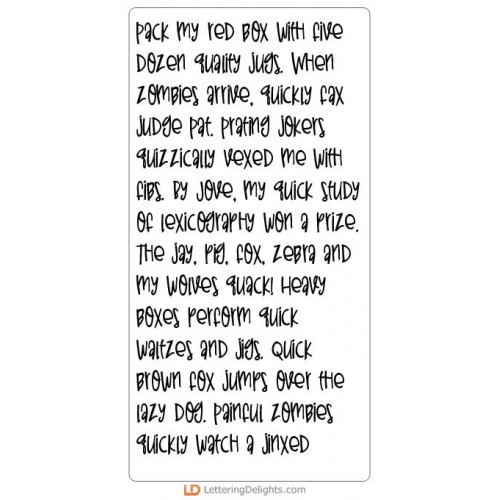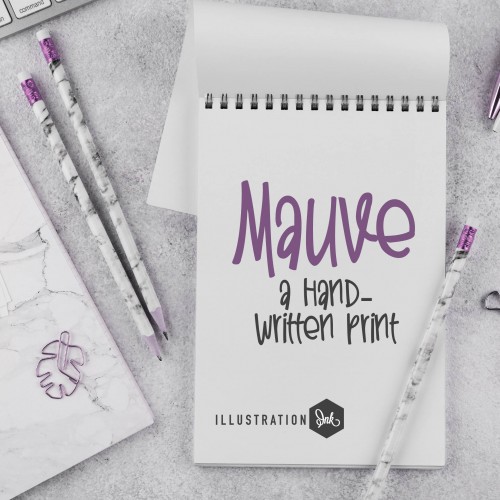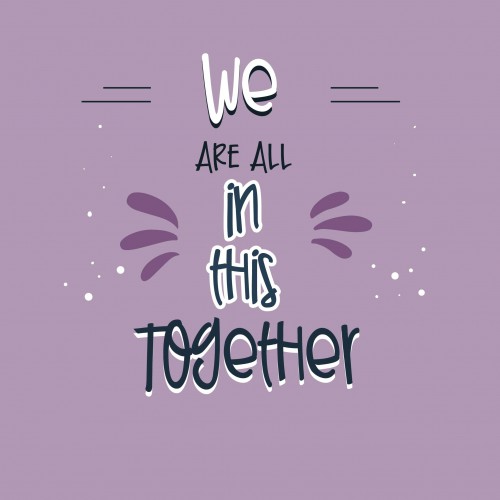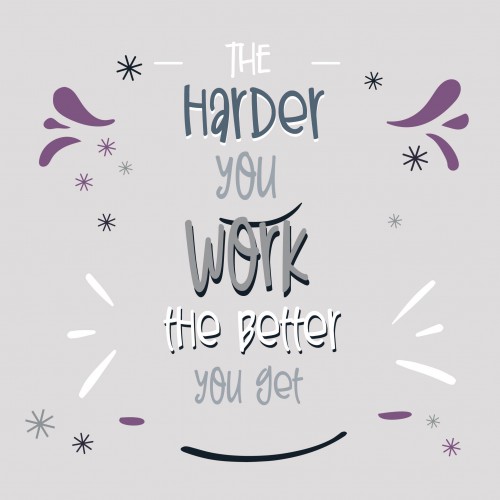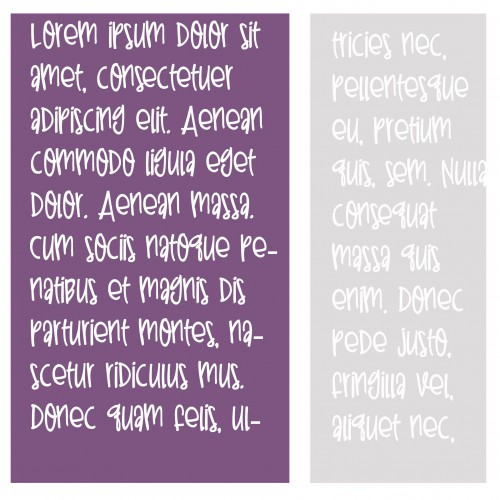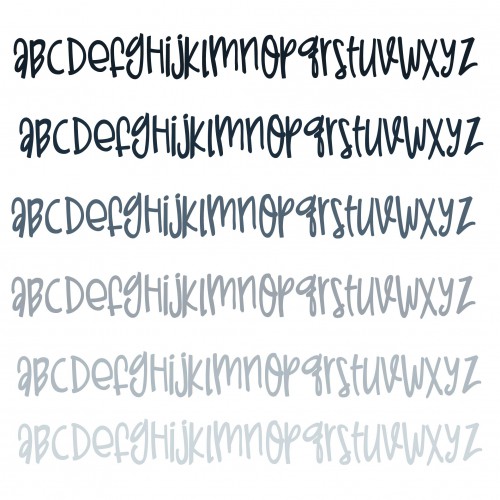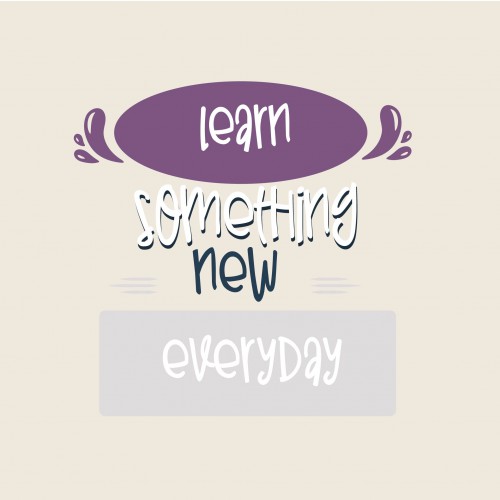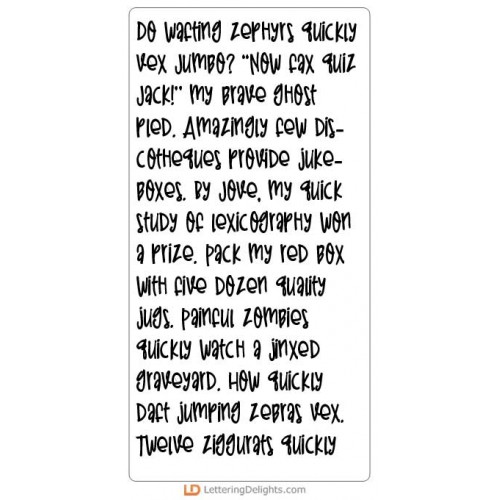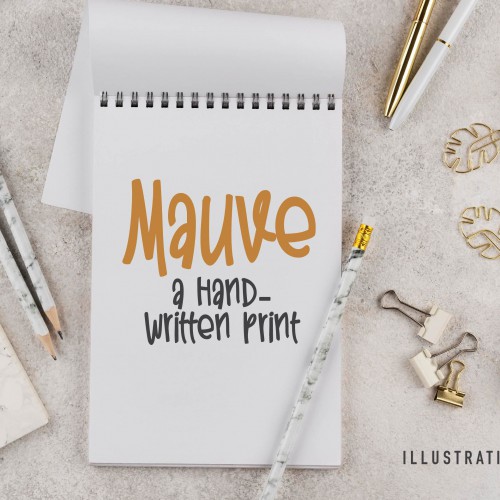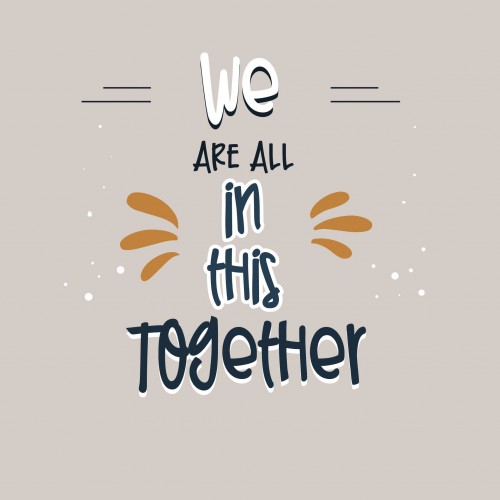
ZP Mauve Condensed Demi Bold - FN
This hand-written script is a casual print with a bit of a script-like feel...
ZP Mauve Condensed Bold - FN
This hand-written script is a casual print with a bit of a script-like feel...